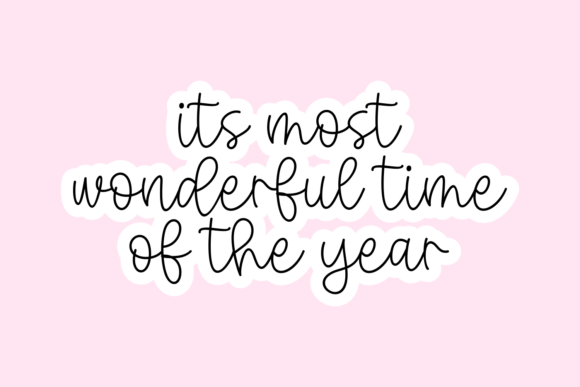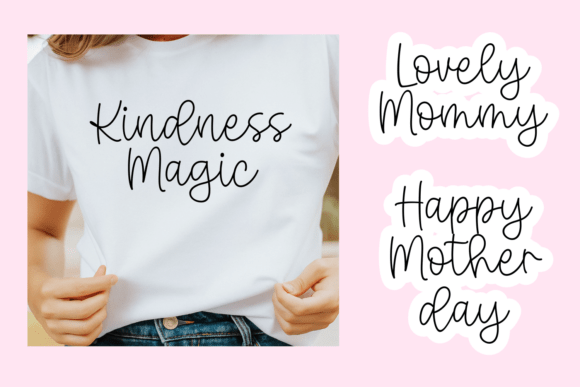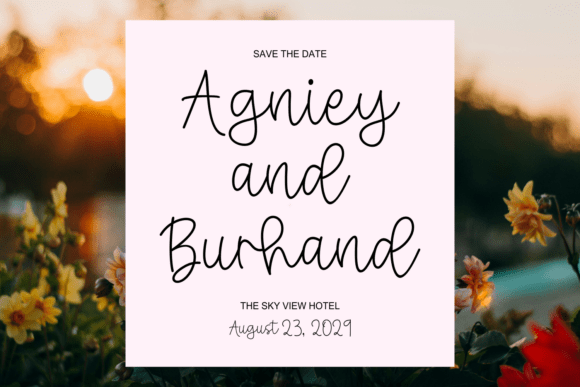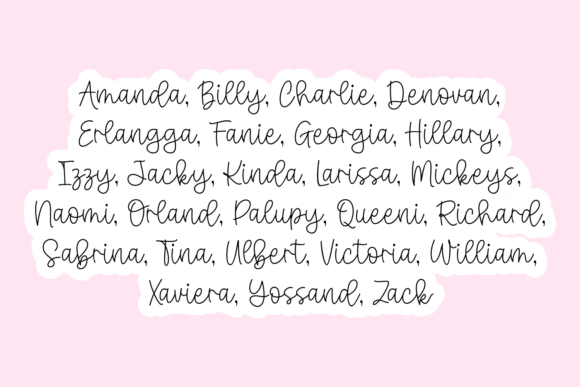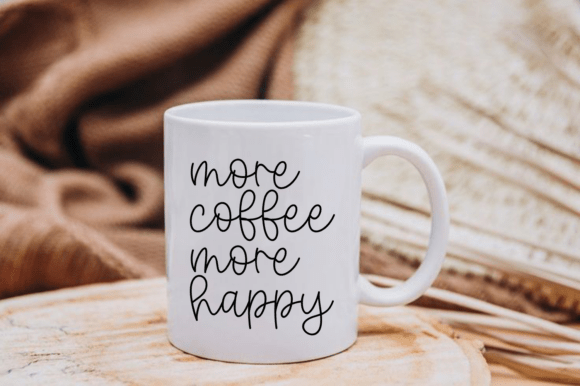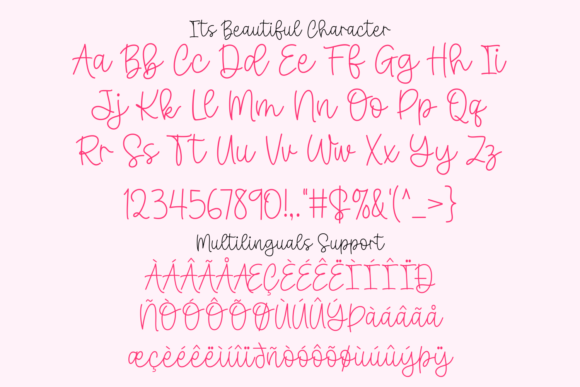
Introduction to It’s Beautiful Font
As a designer, there’s something magical about receiving a handwritten note or card from a loved one. The personal touch, the imperfections, and the love that goes into crafting it all come together to create a truly special experience. That’s exactly the feeling you can evoke with the It’s Beautiful Font, a playful monoline script font that’s sure to bring a smile to anyone’s face.
This charming font is more than just a design resource – it’s a way to add a personal touch to your creative projects. Whether you’re working on a DIY craft project, creating social media overlays, or designing product packaging, It’s Beautiful Font delivers a sense of handcrafted warmth and lighthearted elegance that’s sure to impress.
Key Features of It’s Beautiful Font
- High-quality, intricate design with a transparent background, making it ideal for creative projects requiring a unique aesthetic.
- Comes in 7 different font styles, each with its own distinct characteristics, making it a valuable design resource for creative professionals.
- Designed with precision, this font boasts a high resolution of 300 DPI, ensuring crisp and clear text even at larger sizes.
- Perfect for use in various creative projects, including branding, advertising, and editorial content, thanks to its elegant and sophisticated design.
Honest Review: It’s Beautiful Font
I recently had the chance to work with It’s Beautiful Font for a creative project, and I must say it’s been a game-changer. The font is a valuable design resource that can elevate any design to the next level. One of the things that really stood out to me is the high-quality design of the font, which features a beautiful, elegant style that’s perfect for any design project.
- ✨ High-quality design: The font is well-designed and features a beautiful, elegant style that’s perfect for any design project.
However, there are a few limitations to keep in mind. ⚠️ Limited font styles: While the font is well-designed, it only comes in a few different styles, which may limit its versatility. Additionally, ⚠️ no bold or italic options: While the font is elegant, it doesn’t come with bold or italic options, which may be a drawback for some designers.
Overall, I’m really impressed with It’s Beautiful Font. It’s a valuable design resource that can add a touch of elegance to any design project. While it has a few limitations, I think it’s definitely worth checking out, especially for designers on a budget.